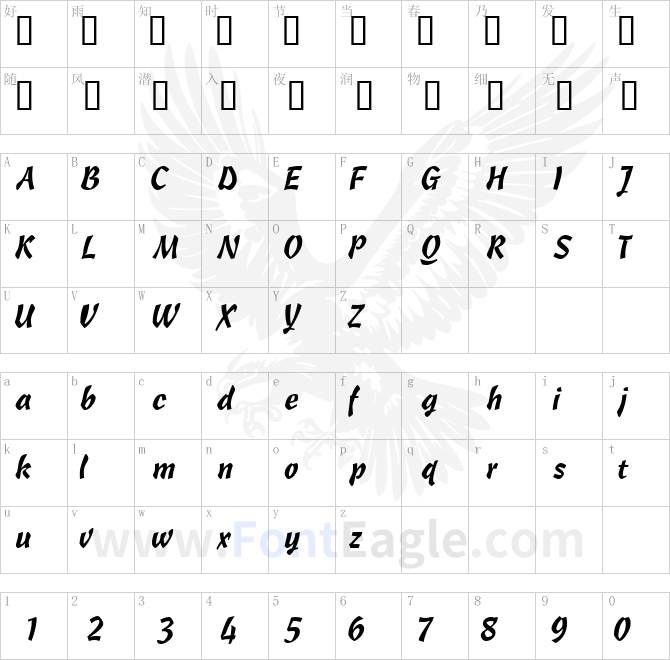
OleScriptLightSSK is a great font, widely used in graphic design, single-page menu design, poster design and other fields, and is deeply loved by designers.OleScriptLightSSK download.